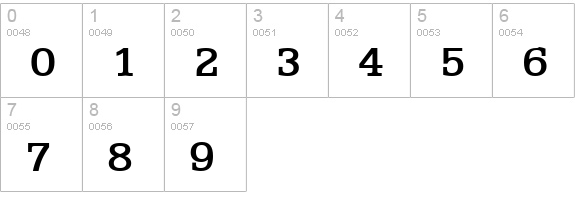
Eggo Wide Bold is a strong, high-contrast, extended-width variant in the Eggo typeface family \xE2\x80\x94 well suited to headlines, attention-grabbing titles, and strong calls-to-action.
Introducing Eggo Wide Bold, the epitome of modernity and sophistication. This captivating typeface effortlessly combines sleek lines with a bold presence, making it the perfect choice for any design project that calls for a touch of boldness and creativity. Eggo Wide Bold exudes confidence and commands attention with its wide letterforms and strong, geometric shapes. Its clean and distinct character creates an instant visual impact, making it ideal for headlines, titles, logos, and branding materials. What sets Eggo Wide Bold apart is not only its impeccable design, but also its accessibility. This remarkable font is freely available to download at FontsMarket.com, ensuring that designers of all levels can effortlessly incorporate it into their projects without breaking the bank. Whether you're designing a website, crafting a poster, or creating eye-catching social media graphics, Eggo Wide Bold will effortlessly elevate your work to new heights. Its versatility allows it to adapt to a wide range of design styles, making it the perfect companion for both modern and classic aesthetics. With its generous curves and bold strokes, Eggo Wide Bold is a font that demands attention and leaves a lasting impression. Its legibility is second to none, ensuring that your message is conveyed with clarity and impact. So, why settle for ordinary when you can have extraordinary? Download Eggo Wide Bold today from FontsMarket.com and unlock the limitless possibilities it offers. Whether you're a professional designer or a passionate hobbyist, this font is sure to become your go-to choice for all your design needs. Embrace the power of Eggo Wide Bold and let your creativity soar.